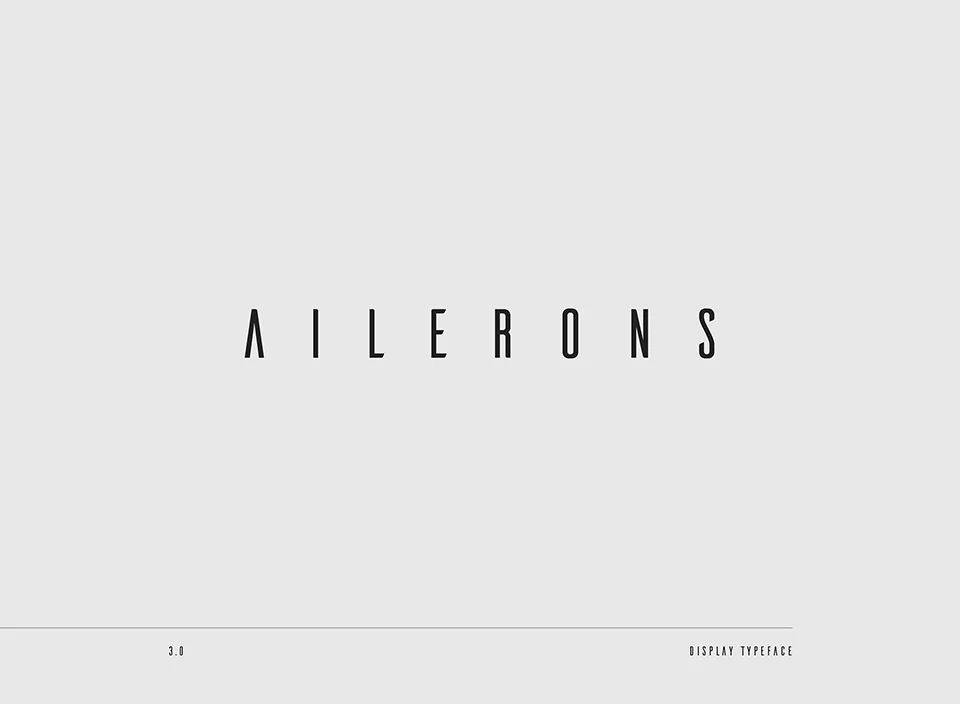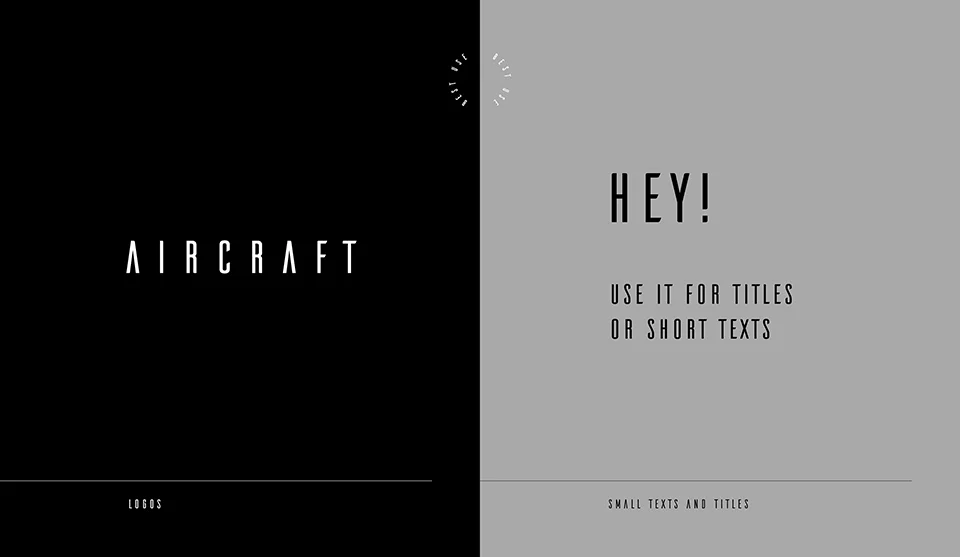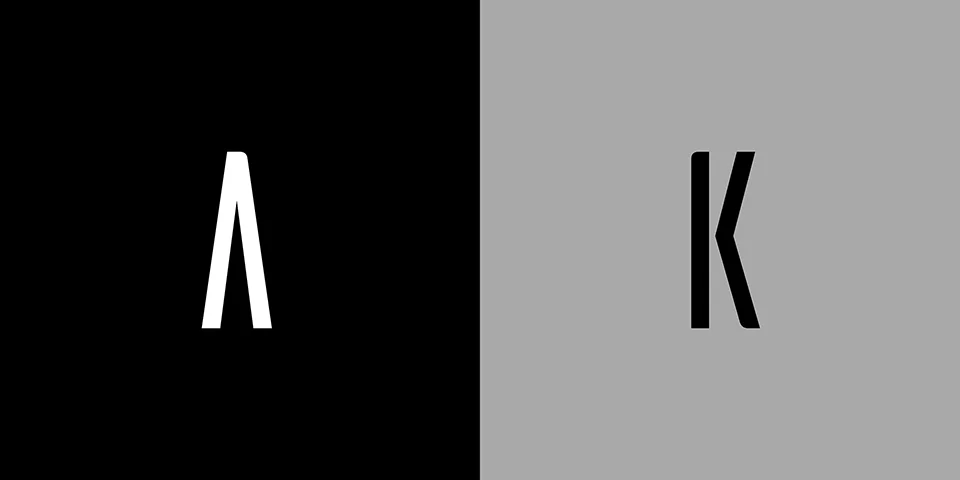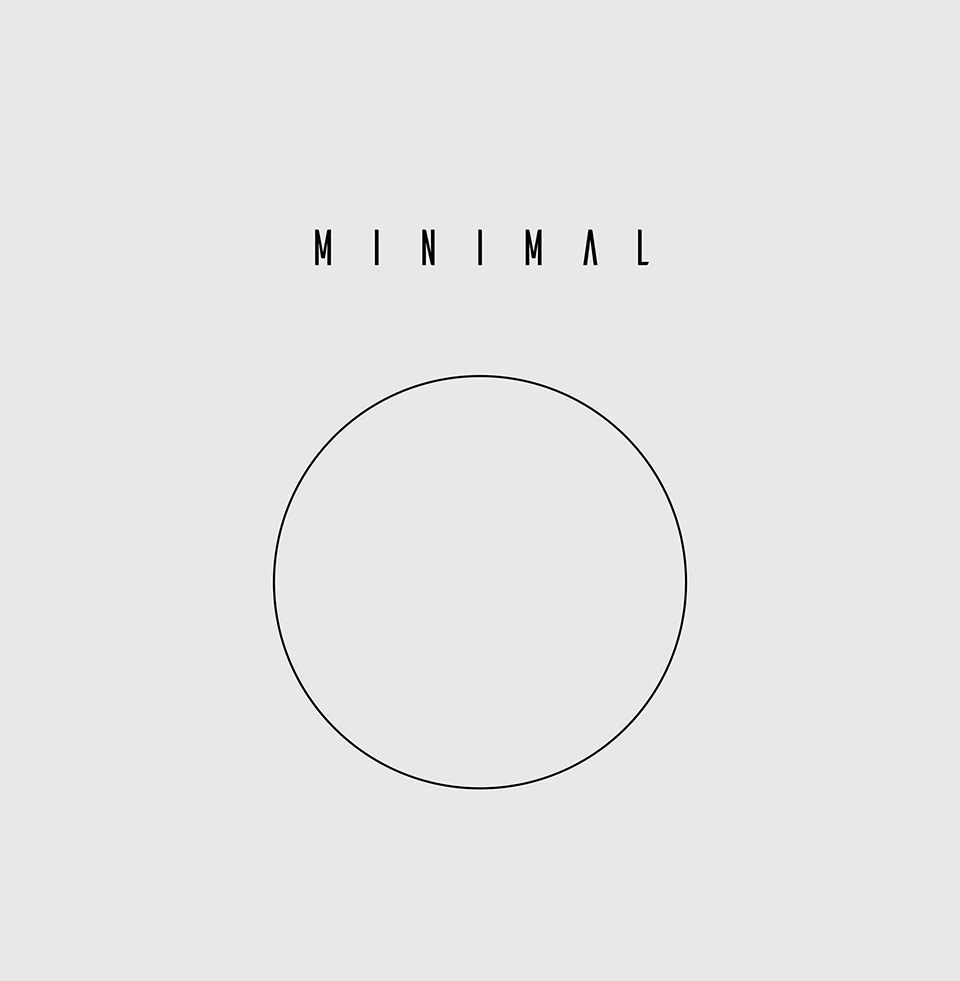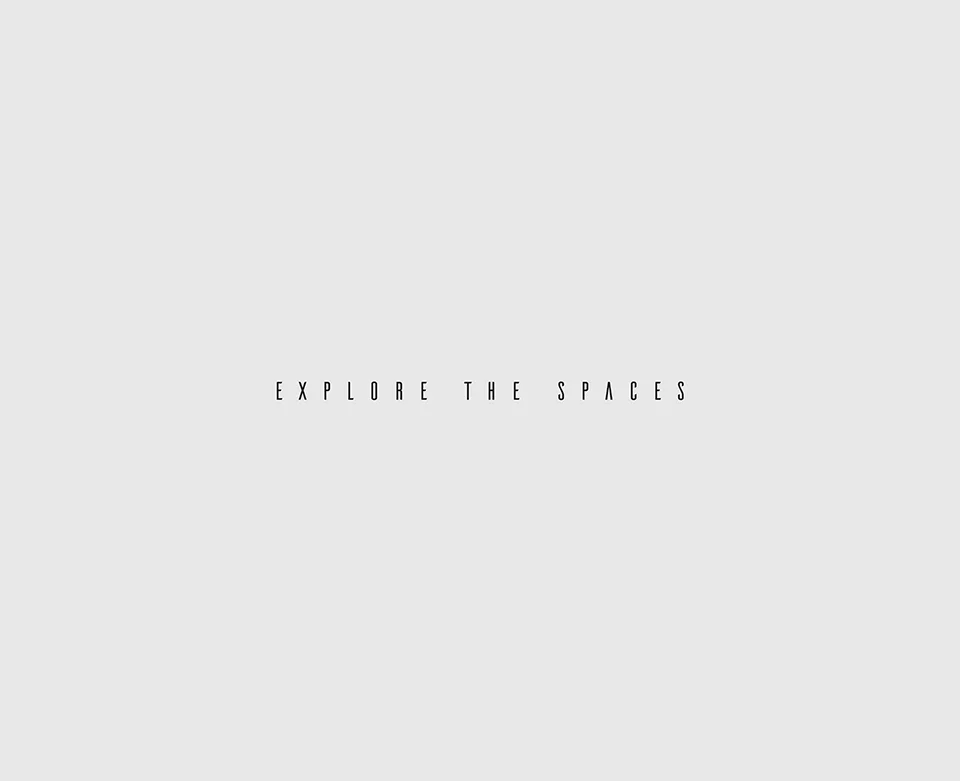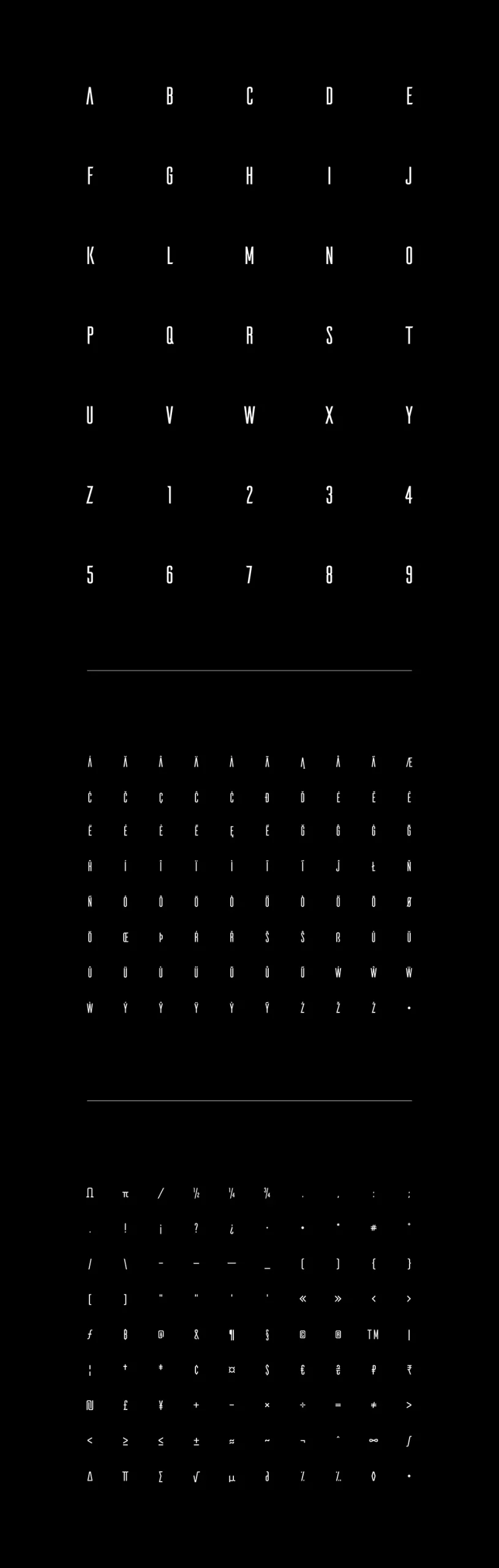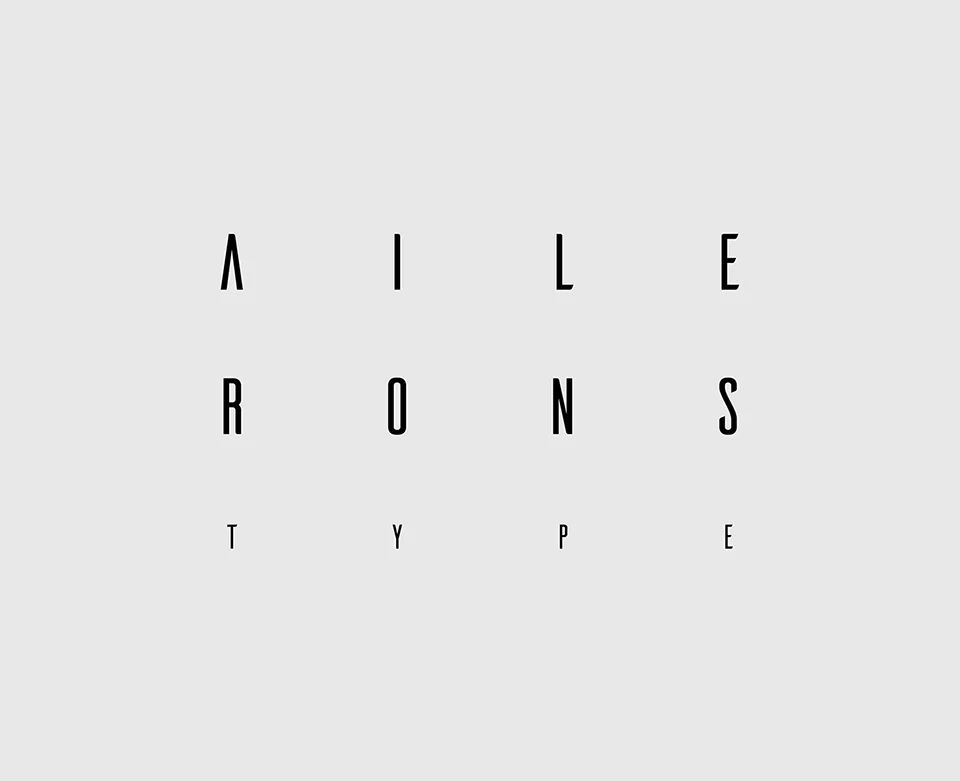
Ailerons
Ailerons Font
Ailerons is a modern sans-serif font inspired by classic 1940s aviation fonts. Designed by Adilson Gonzales, it features a minimalist, clean aesthetic with straight lines and high legibility.